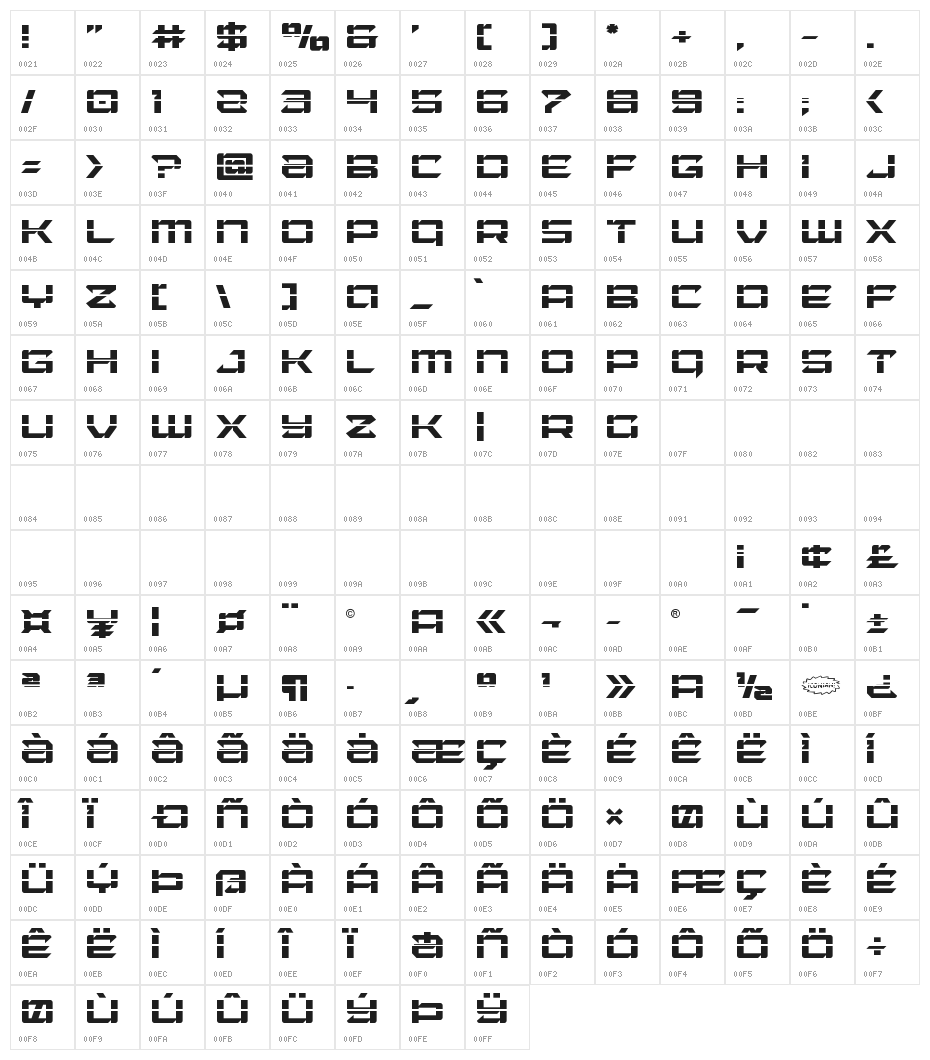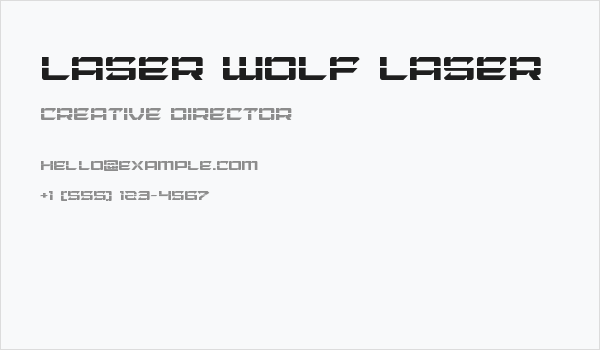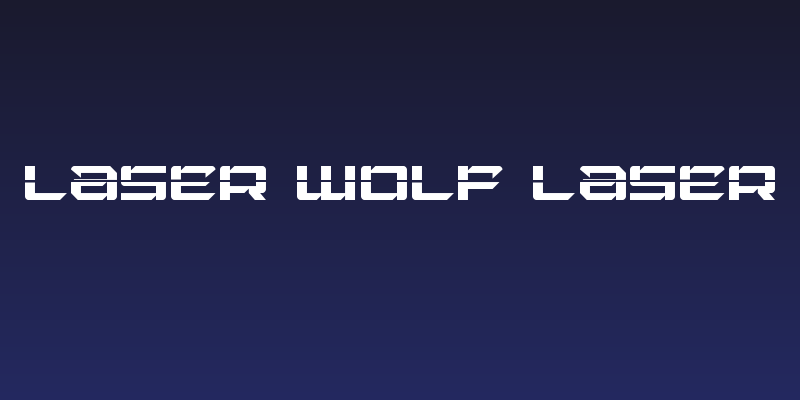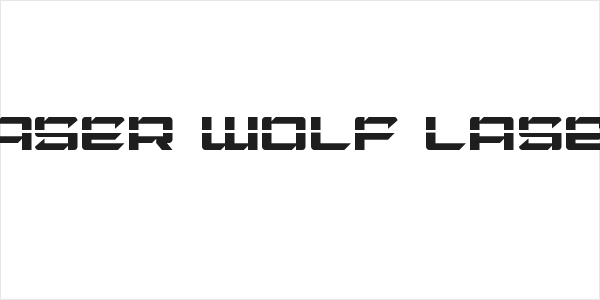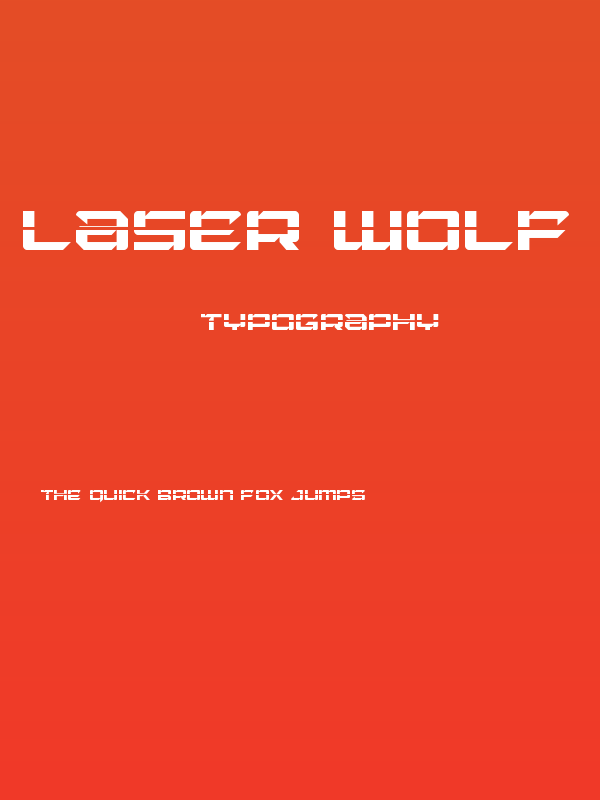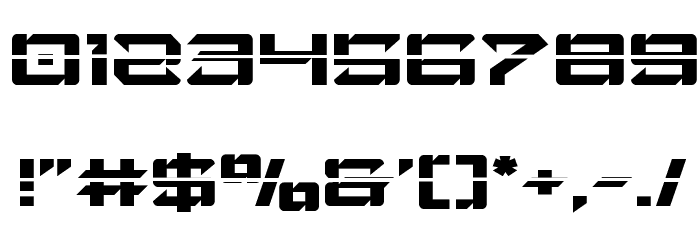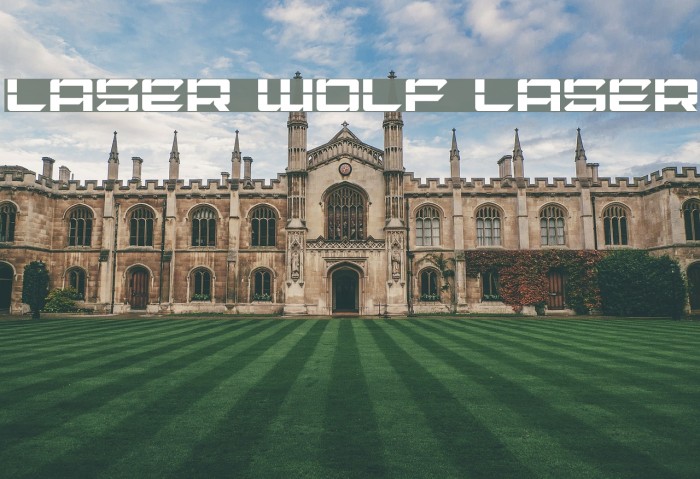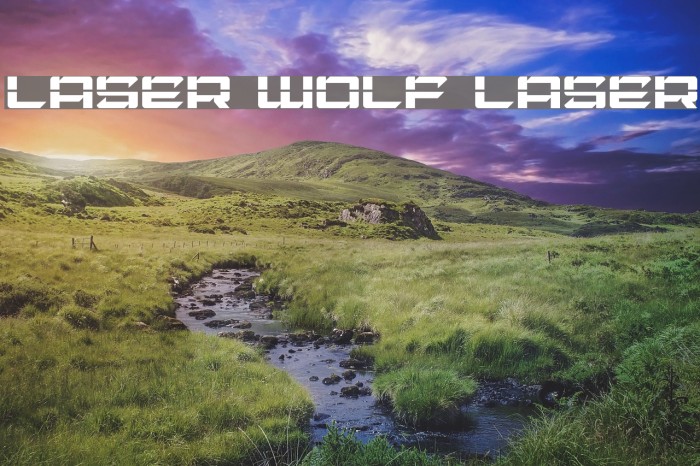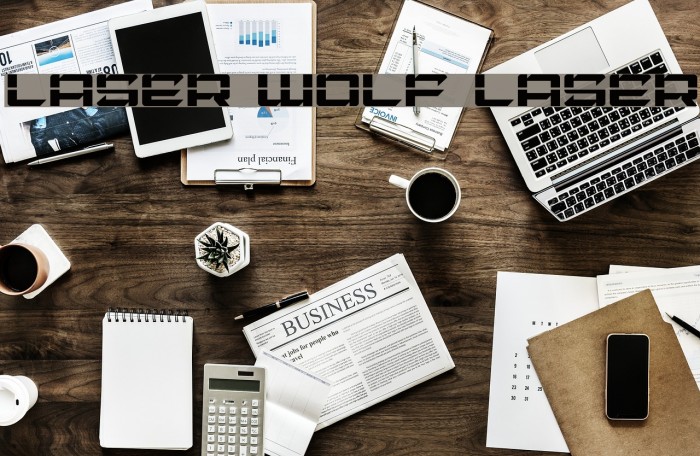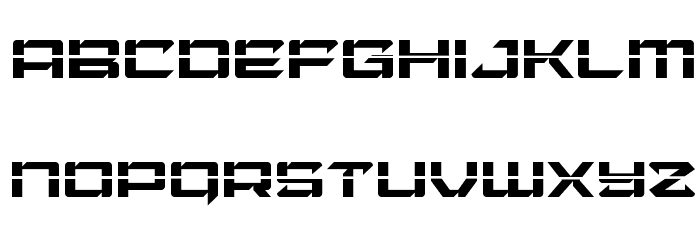
Laser Wolf Laser Font
This font features a futuristic and geometric design, characterized by its sharp angles and bold, block-like structure. The letters are crafted with a distinct, segmented appearance, giving them a digital or robotic feel. The uppercase and lowercase letters maintain a consistent style, with uniform thickness and angular cuts that create a cohesive look. Numbers and special characters follow the same design principles, ensuring a seamless integration across all text elements. The font's unique style makes it stand out, ideal for projects that require a modern and edgy aesthetic.
| Proposed Projects | Ideal for sci-fi themed designs, tech branding, video game graphics, and futuristic posters. |